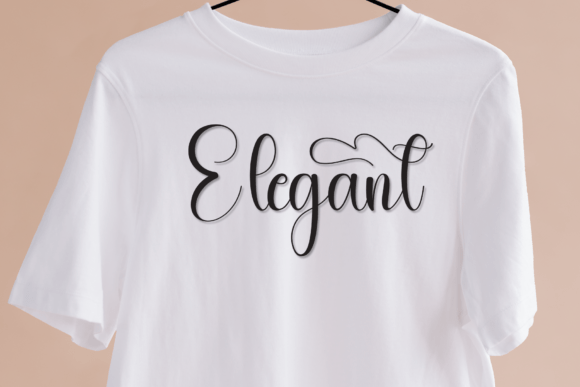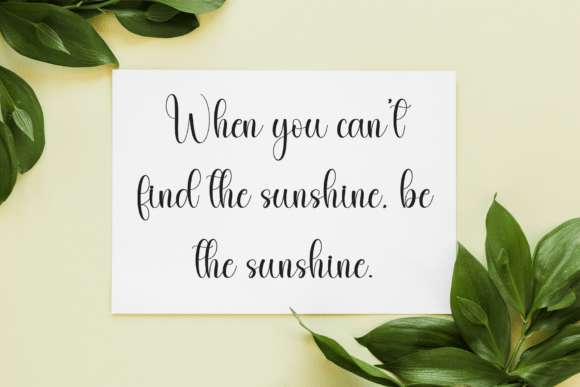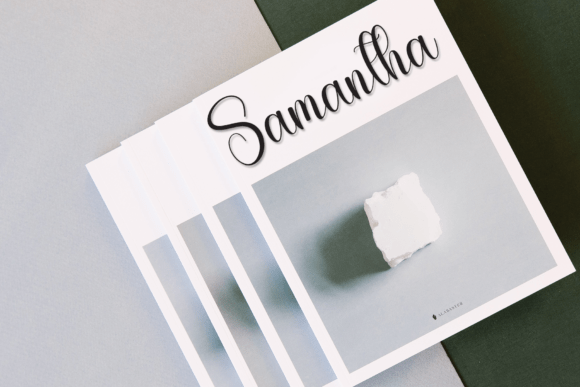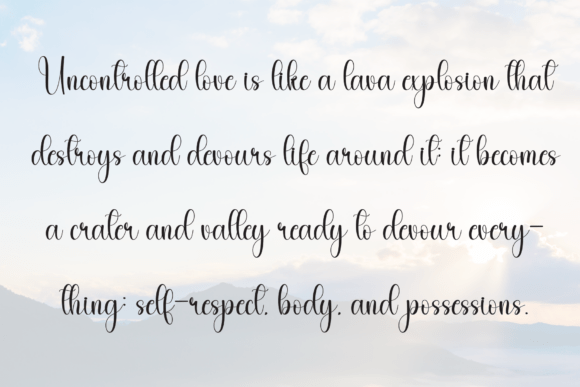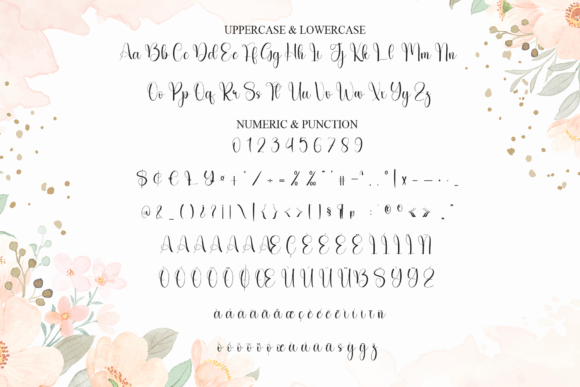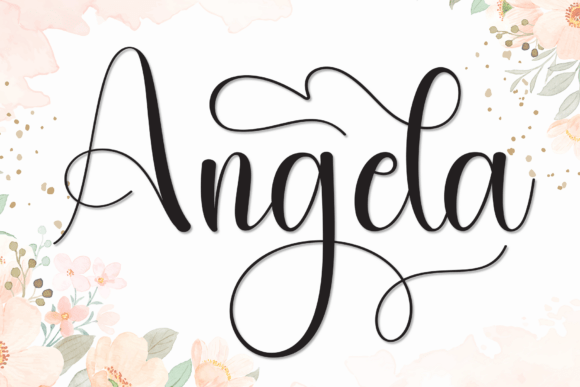
Discover the Enchanting Charm of Angela Font
Are you looking for a font that can add a touch of magic to your designs? Look no further than Angela Font, a captivating calligraphy-inspired showpiece that is bubbling with irresistible charisma and welcoming appeal. This radiant font is designed to infuse a rejuvenating essence into your wedding invitations, greeting cards, or any design yearning for an energetic boost.
The Unique Characteristics of Angela Font
Angela Font is not just a font, but a charismatic character that delivers the joy of words. Its spirited enthusiasm and enchanting charm effortlessly draw in and bewitch, making it the perfect choice for designers and crafters who want to create something truly special. With its playful and energetic vibe, Angela Font is sure to add a touch of whimsy to any design.
The Benefits of Using Angela Font
So, what makes Angela Font so special? Here are just a few benefits of using this amazing font:
- Adds a touch of elegance: Angela Font’s calligraphy-inspired design adds a touch of sophistication and elegance to any design, making it perfect for wedding invitations, greeting cards, and other special occasions.
- Infuses energy and vitality: This font’s radiant vitality infuses a rejuvenating essence into your designs, making it perfect for projects that need a boost of energy and enthusiasm.
- Effortlessly draws in and bewitches: Angela Font’s enchanting charm has a way of captivating audiences, making it perfect for designers and crafters who want to create something truly special.
How to Use Angela Font in Your Designs
Angela Font is incredibly versatile and can be used in a variety of design projects, including:
- Wedding invitations: Add a touch of elegance and sophistication to your wedding invitations with Angela Font.
- Greeting cards: Create beautiful and unique greeting cards for special occasions with Angela Font.
- Branding and packaging: Use Angela Font to add a touch of whimsy and personality to your branding and packaging designs.
- Digital designs: Angela Font can be used in digital designs, such as social media graphics, blog posts, and more.
Tips and Tricks for Getting the Most Out of Angela Font
Here are a few tips and tricks for getting the most out of Angela Font:
- Experiment with different colors: Angela Font looks great in a variety of colors, so don’t be afraid to experiment and find the perfect hue for your design.
- Play with font sizes: Angela Font can be used in a variety of font sizes, from large and bold to small and delicate.
- Combine with other fonts: Angela Font pairs well with other fonts, so feel free to get creative and combine it with other typefaces to create something truly unique.
Angela Font is a truly special font that can add a touch of magic to any design. With its captivating charm, spirited enthusiasm, and enchanting appeal, it’s the perfect choice for designers and crafters who want to create something truly special. Whether you’re looking to create a beautiful wedding invitation, a unique greeting card, or a stunning branding design, Angela Font is sure to deliver.
Get Ready to Fall in Love with Angela Font
So, what are you waiting for? Discover the enchanting charm of Angela Font today and get ready to fall in love with this captivating calligraphy-inspired showpiece. With its irresistible charisma and welcoming appeal, Angela Font is sure to become your new go-to font for all your design needs.